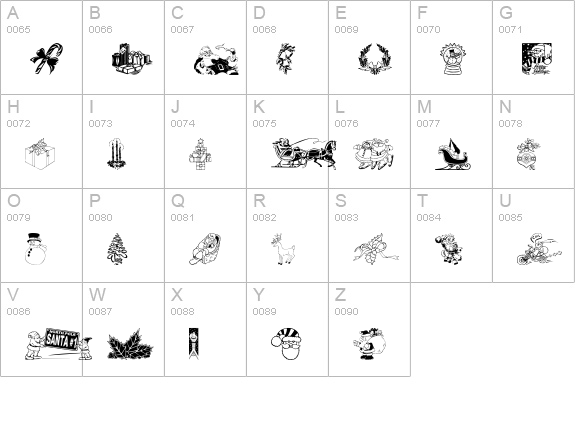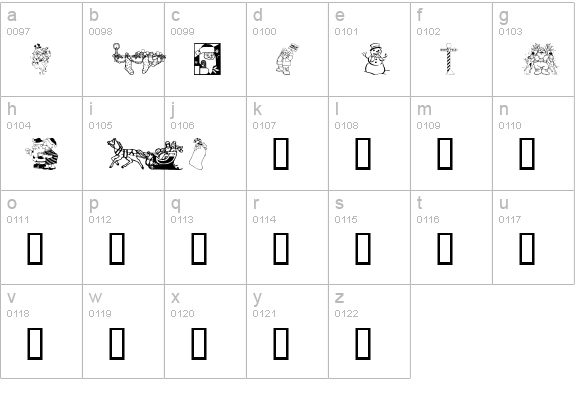
Xmas Clipart 2 font is a whimsical and festive typeface perfect for all your holiday design needs. This charming font features unique Christmas-themed clipart icons integrated within each letter, adding a touch of holiday cheer to your projects. Whether you're creating greeting cards, party invitations, or holiday posters, Xmas Clipart 2 font is sure to bring a joyful and playful element to your designs. Best of all, Xmas Clipart 2 font is available for free download at FontsMarket.com. Simply visit the website and add this delightful font to your collection without any cost. Spread the holiday spirit with Xmas Clipart 2 font and make your projects merry and bright this Christmas season!